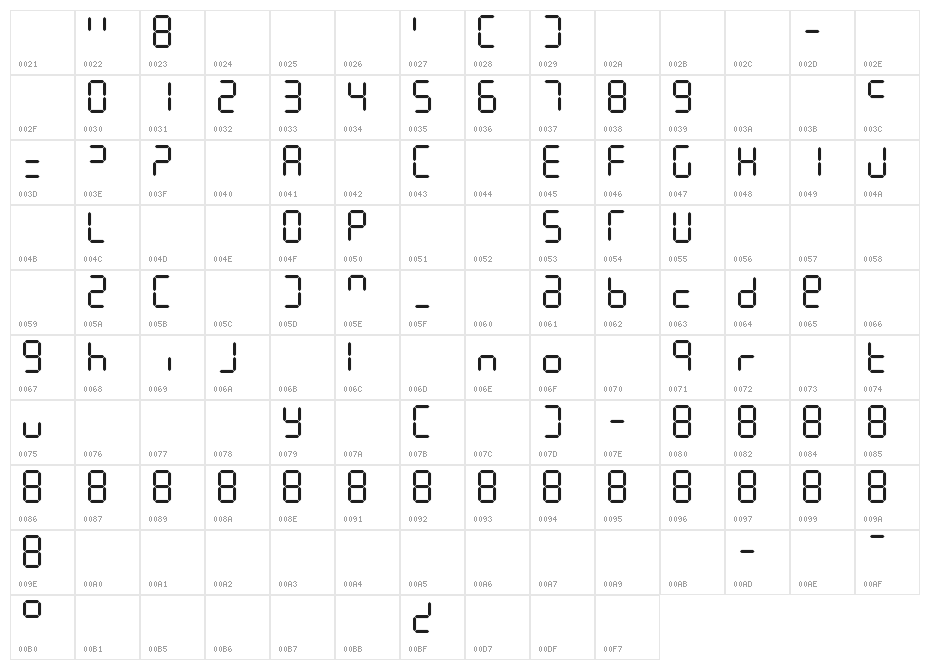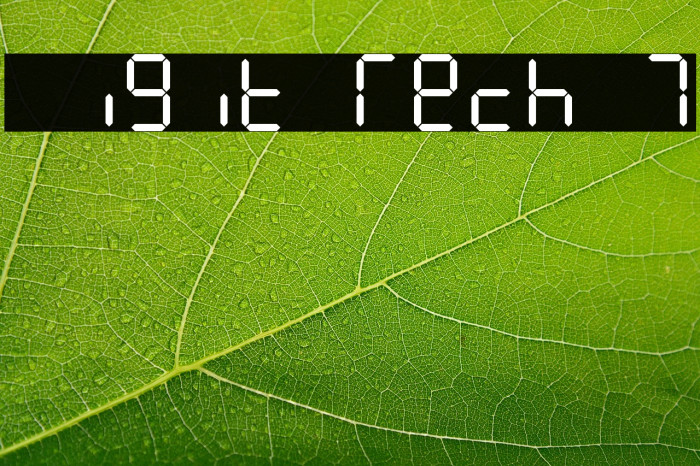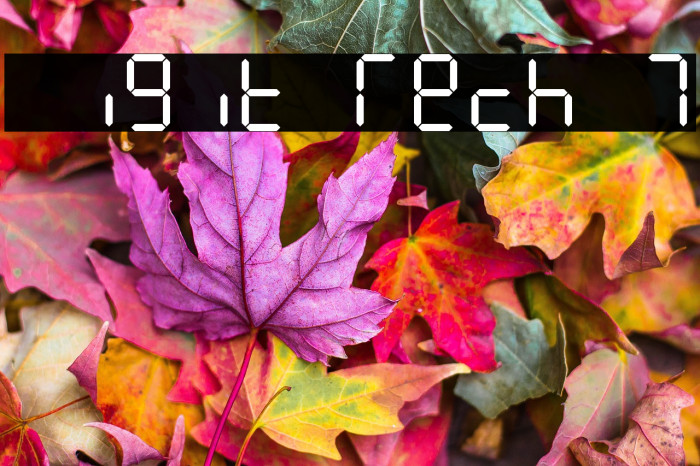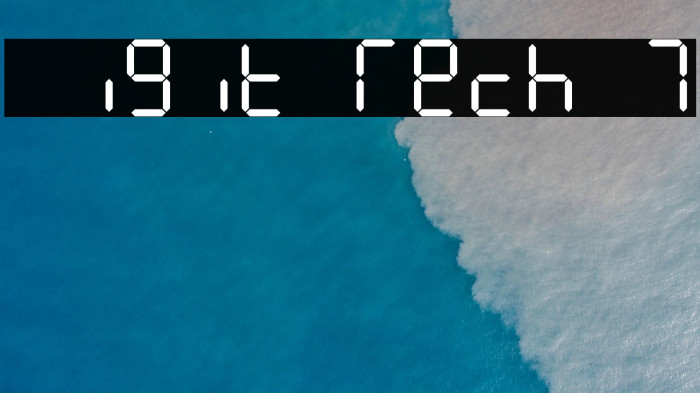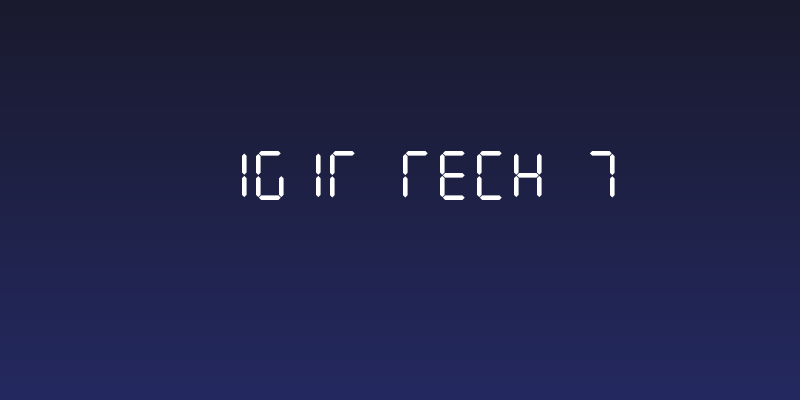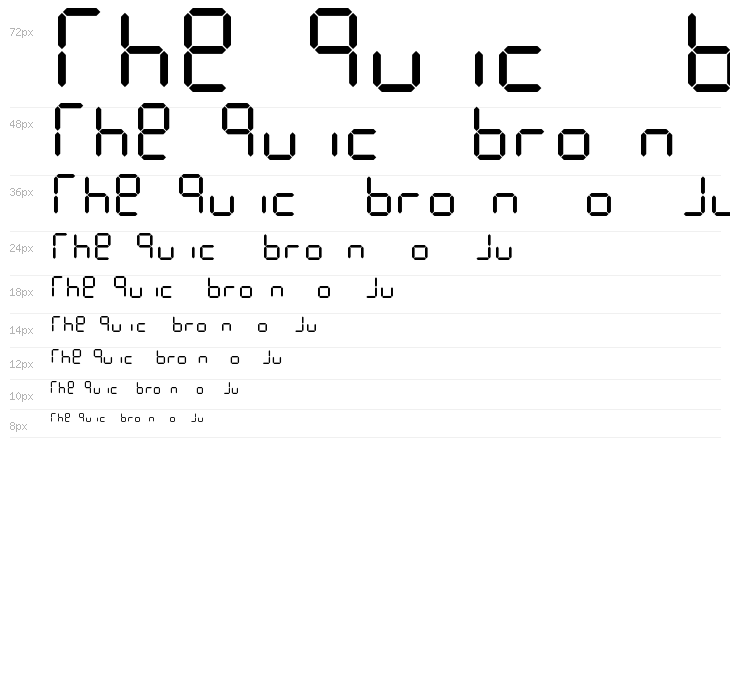
Digit Tech 7 Font
Digit Tech 7 Description
This font features a digital, tech-inspired design reminiscent of LED or LCD displays. Each character is constructed with a series of straight lines and angles, creating a geometric and futuristic appearance. The uppercase and lowercase letters maintain a consistent style, with a uniform height and width that enhances readability. Numbers and special characters follow the same design principles, ensuring a cohesive look across all elements. The font's structure is minimalistic yet bold, making it suitable for digital interfaces and technology-themed projects.
| Use Case | Headlines, Logos, Digital displays |
| Proposed Projects | Ideal for digital displays, tech branding, futuristic designs, and user interfaces. |